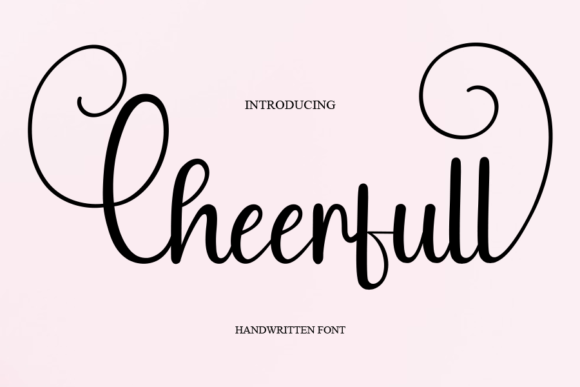
Step into the realm of captivating visual expression with Cheerfull Font, a script font family that dances across the digital canvas with its carefree elegance and modern flair. This font embodies the spirit of creativity, inviting you to explore a world where your designs take on a life of their own.
Unleash your imagination and let Cheerfull Font guide you through a symphony of emotions. With its smooth curves and playful strokes, this font adds a touch of whimsy to your creations, evoking a sense of joy and wonder. From playful illustrations to elegant branding, Cheerfull Font becomes a versatile chameleon, adapting seamlessly to your artistic vision.
Delve into the world of Cheerfull Font and discover a font that sparks conversations and ignites imaginations. Its enchanting aura captivates audiences, drawing them into your designs with its alluring charm.
Cheerfull Font is the perfect muse for designers, artists, and creative entrepreneurs seeking to make a lasting impression. Whether you're crafting logos that exude personality, designing websites that ooze style, or creating social media content that captivates, Cheerfull Font elevates your designs to new heights.
Immerse yourself in the Cheerfull Font experience and transform your creative endeavors into expressions of pure delight. Let this font be your companion as you embark on a journey of visual storytelling, leaving an indelible mark on the hearts and minds of your audience.